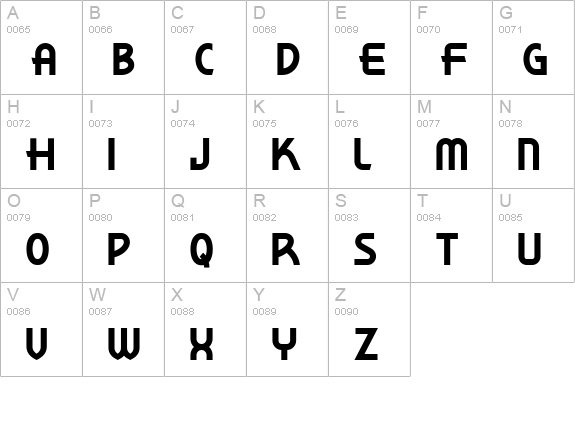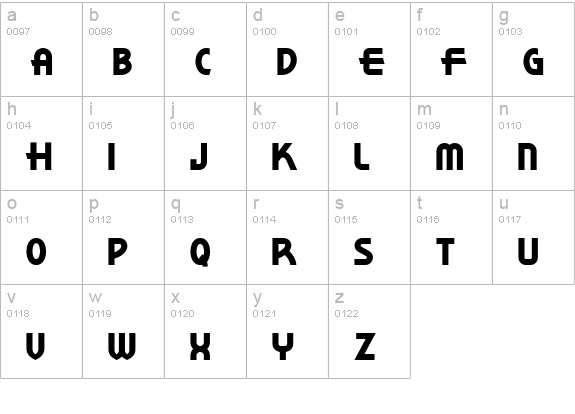
Korner Deli NF Font Details
Korner Deli NF font is a charming and whimsical display typeface that exudes a playful and friendly vibe. With its rounded edges and unique letterforms, this font is perfect for adding a touch of personality to your designs. Whether you're working on a poster, logo, or social media graphic, Korner Deli NF will bring a sense of warmth and character to your projects. What makes Korner Deli NF font even more appealing is that it is completely free to download at FontsMarket.com. That's right, you can add this delightful font to your collection without spending a dime. So go ahead and give your designs a fresh and inviting look with Korner Deli NF font today!